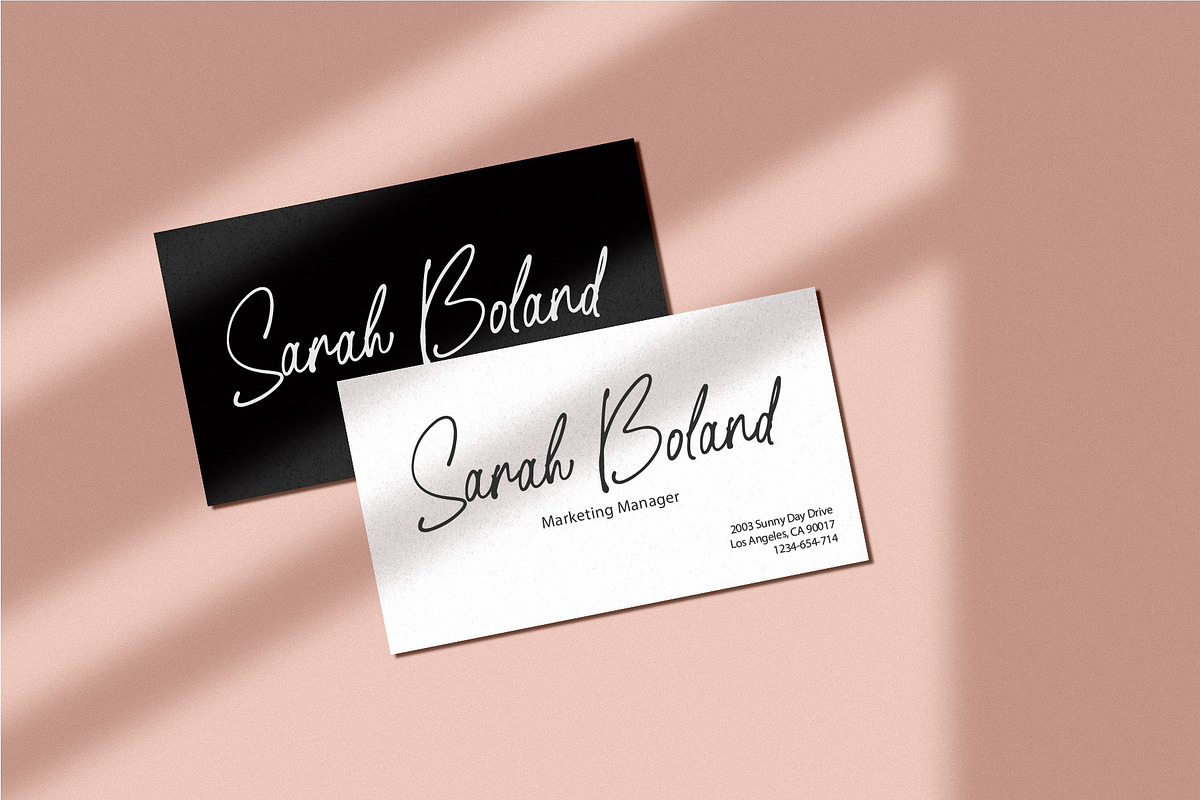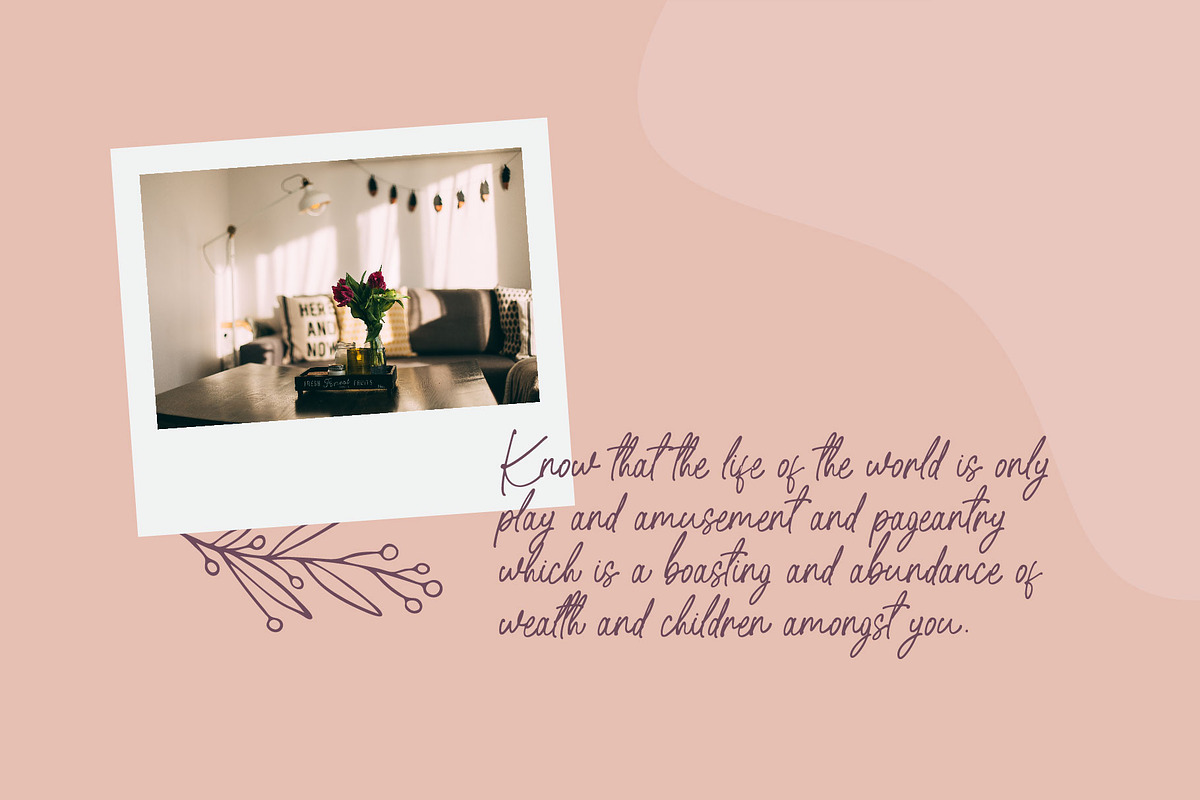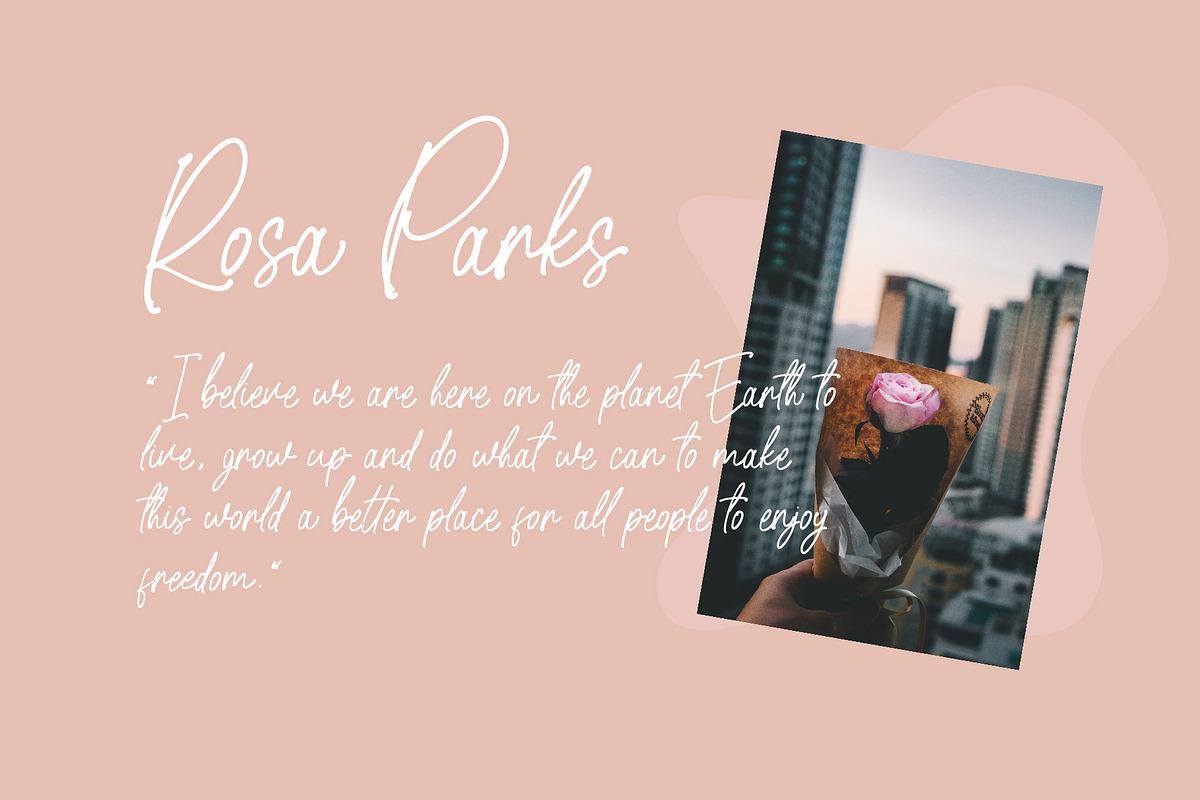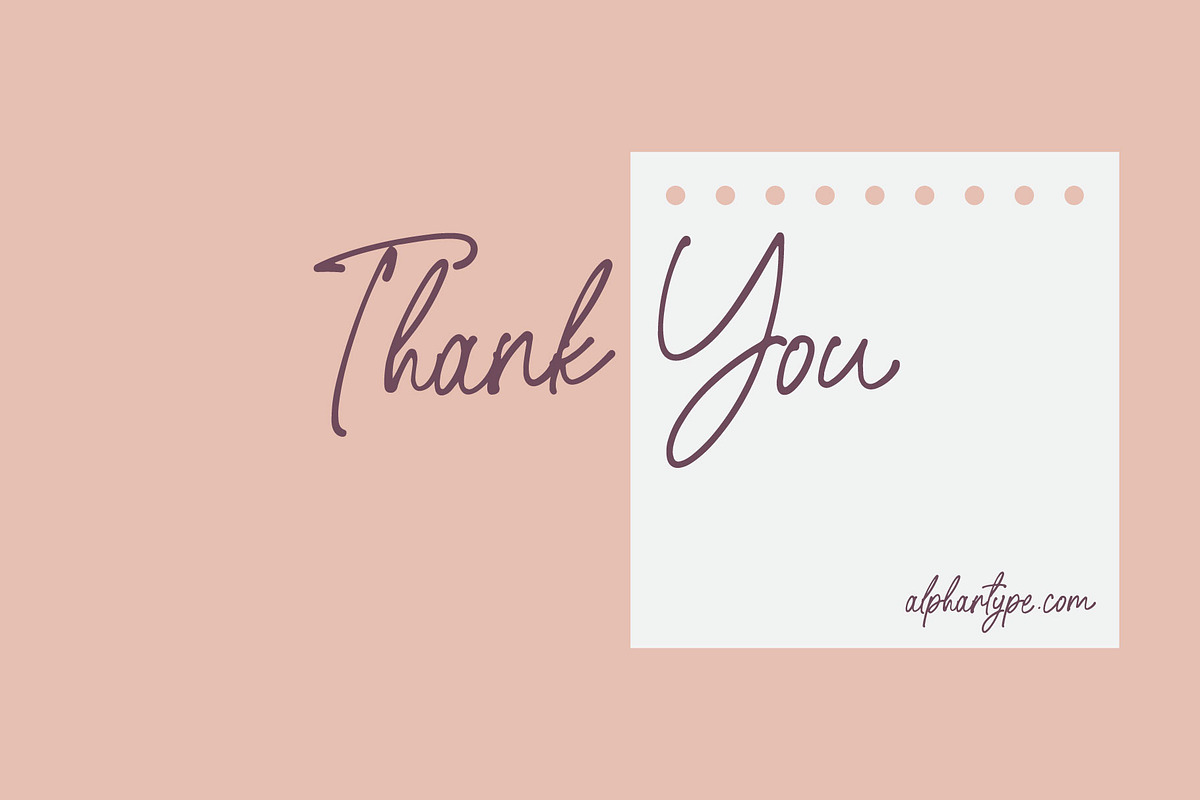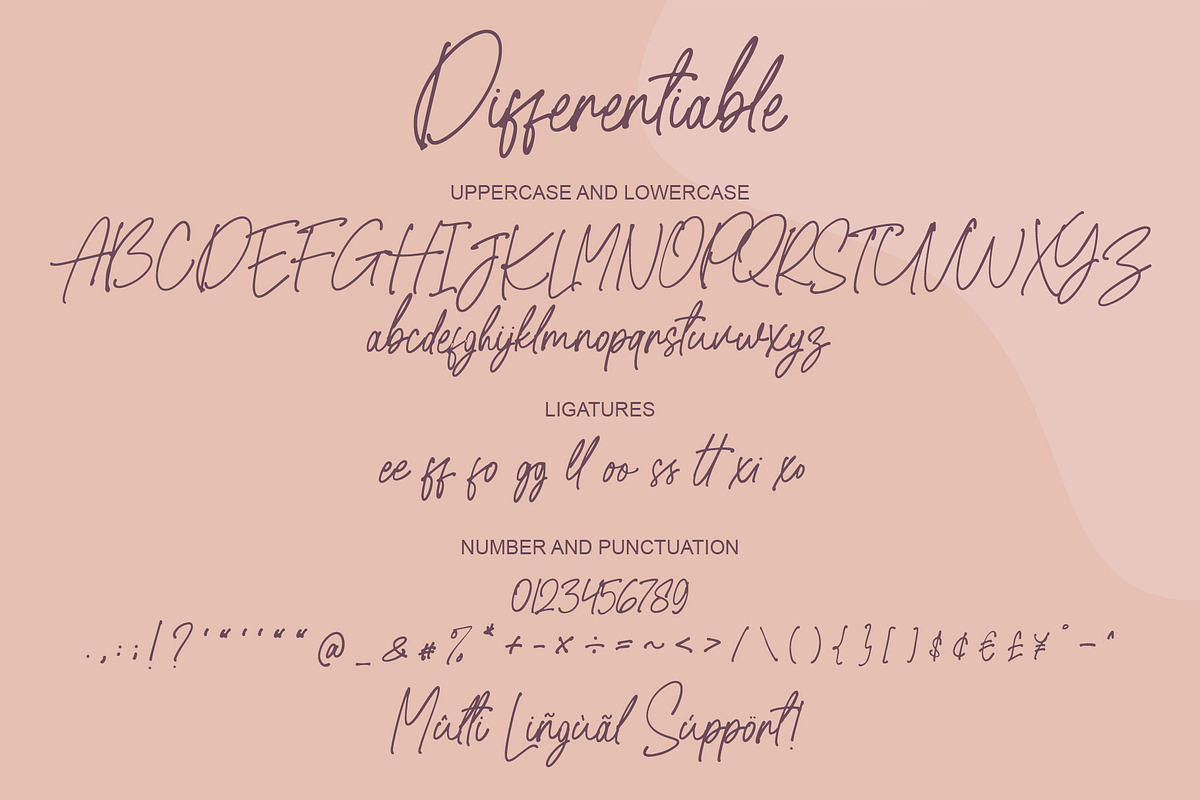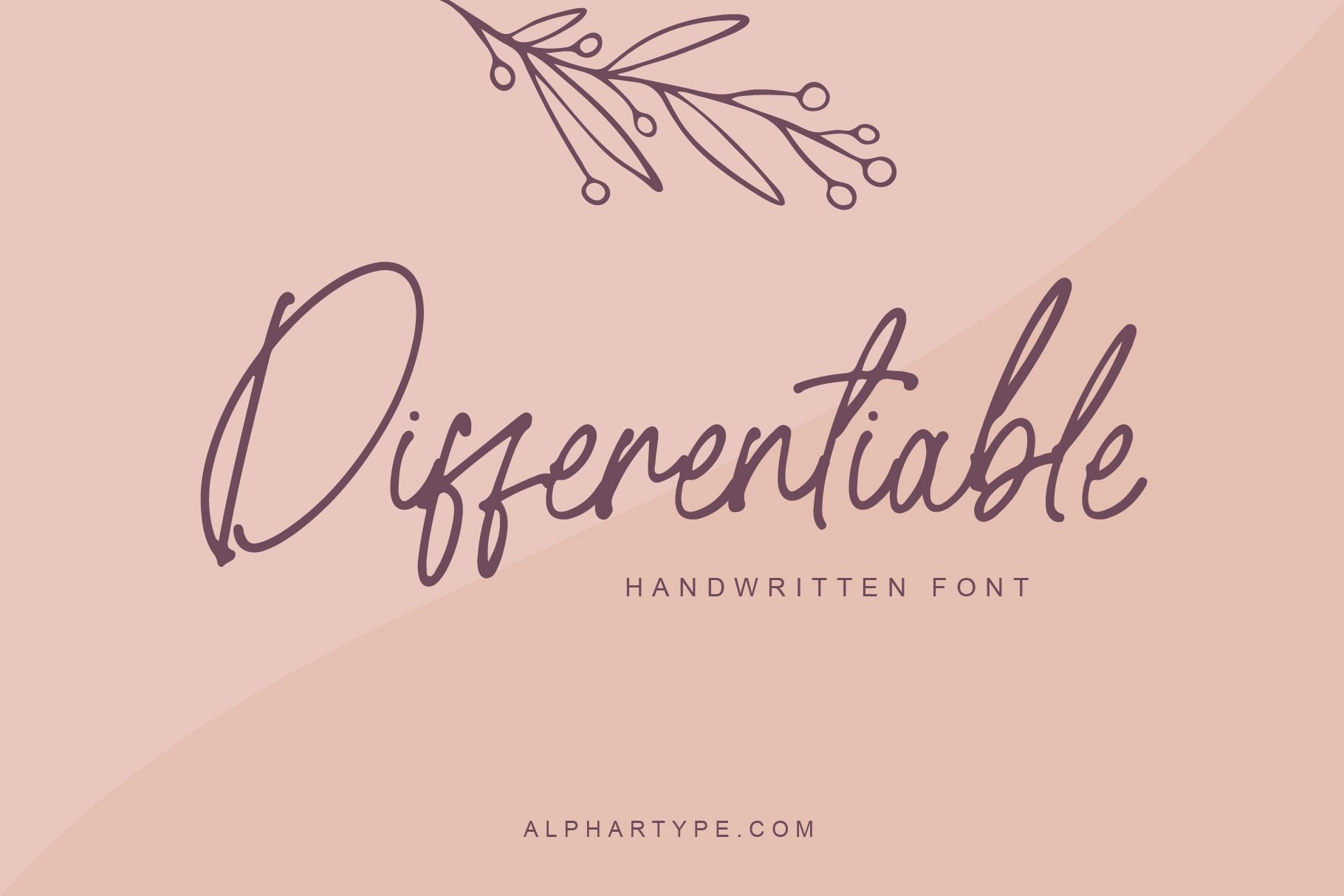
Differentiable | Handwritten font
Hello everyone, this time we would like to introduce a handwritten font that we just made with passion and enthusiastic, this font comes with a touch of natural font.
Introducing this handwritten font called "Differentiable | Handwritten Font", this natural font comes with uppercase letters, lowercase letters,ligatures, multilingual support, numbers and punctuation. This font is suitable for you to use as logos, quotes, instagram posts, invitations, magazines, cards, product packaging, headers and whatever your imagination.